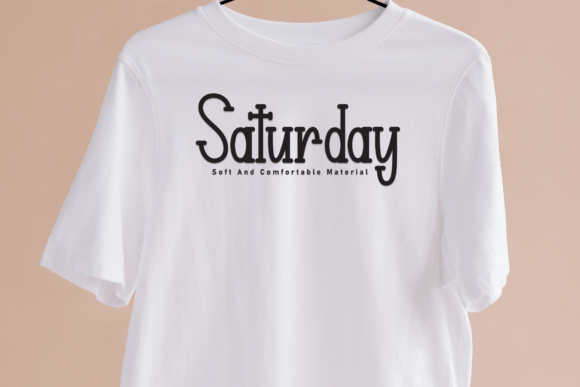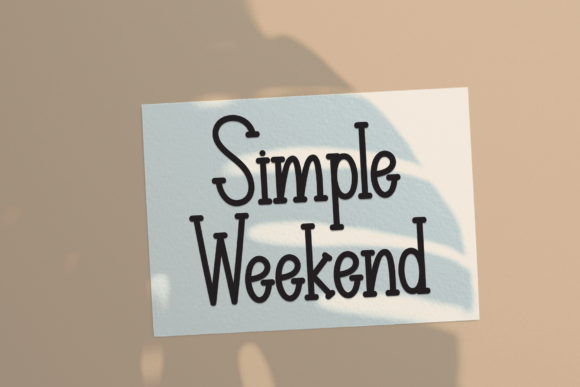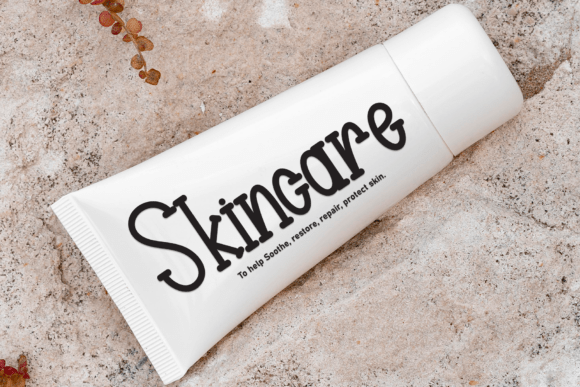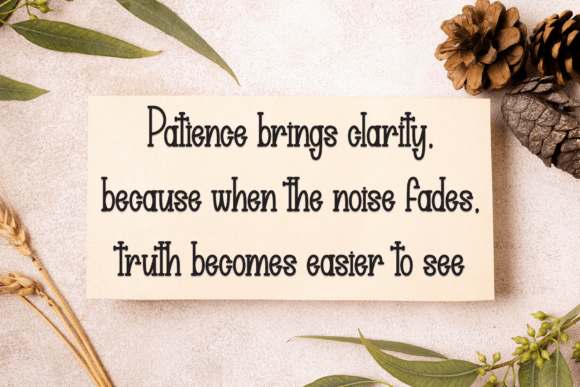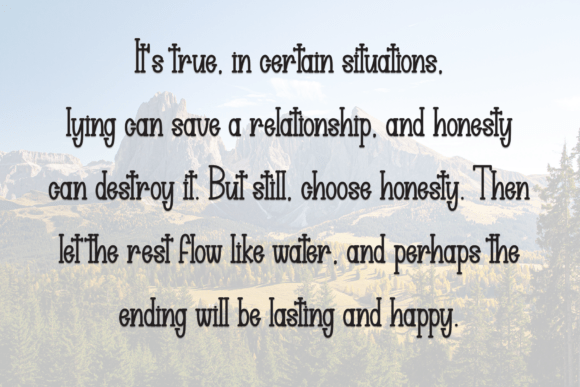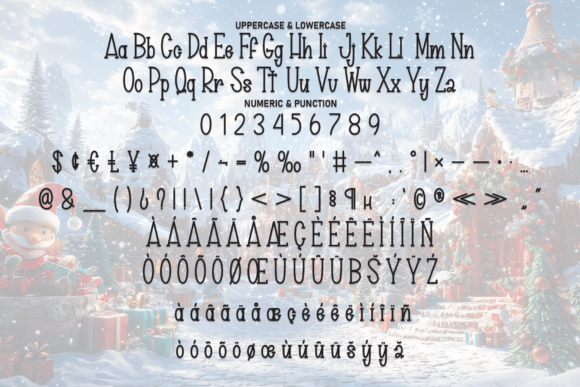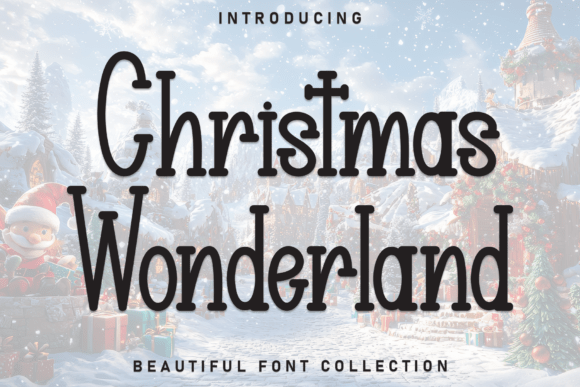
Introducing Christmas Wonderland Font: Elevate Your Designs with Whimsical Elegance
Are you a designer or crafter looking to add a touch of magic to your typography? Look no further than the Christmas Wonderland Font, a handcrafted display typeface that embodies the perfect blend of sophistication and playfulness. This captivating font is designed to inspire creativity and bring a sense of wonder to your designs.
A Harmonic Blend of Style and Substance
Each glyph in the Christmas Wonderland Font is meticulously crafted to exude a sense of irresistible grace and enchanting allure. The result is a font that seamlessly uplifts the aesthetic appeal of any design, making it an exemplary choice for wedding invitations, greeting cards, and other special projects. The joyous yet lucid attributes of this font strike a perfect balance between beauty and readability, ensuring that your message is conveyed with clarity and style.
Unleash Your Creativity with Spirited Elegance
The Christmas Wonderland Font boasts a unique combination of spirited elegance and playful charm. This distinctive character breathes vitality into your text, making it perfect for designers and crafters who want to add a touch of whimsy to their work. Whether you’re creating wedding invitations, holiday cards, or festive posters, this font is sure to captivate your audience and leave a lasting impression.
Distinct Energy and Personality
What sets the Christmas Wonderland Font apart is its extraordinary charisma. This typeface possesses a distinct energy and personality that adds depth and dynamism to every design. By incorporating this font into your project, you’ll reward your audience with a unique visual experience that showcases your creativity and attention to detail.
The Christmas Wonderland Font is an incredibly versatile typeface that can be used in a wide range of projects, including:
- Holiday cards and greetings
- Festive posters and flyers
Why Choose Christmas Wonderland Font?
Here are just a few reasons why designers and crafters love the Christmas Wonderland Font:
- Unique and eye-catching design: This font is sure to grab attention and make your designs stand out.
- Highly readable: The lucid attributes of this font ensure that your message is conveyed with clarity and precision.
- Versatile: Use this font in a variety of projects, from wedding invitations to holiday cards and beyond.
Get Ready to Enchant Your Audience
If you’re looking for a font that will add a touch of magic to your designs, look no further than the Christmas Wonderland Font. With its captivating blend of style and substance, this handcrafted display typeface is sure to delight designers, crafters, and audiences alike. Download the Christmas Wonderland Font today and start creating enchanting designs that will leave a lasting impression.
In conclusion, the Christmas Wonderland Font is an exceptional typeface that offers a unique blend of elegance, playfulness, and readability. Whether you’re a designer, crafter, or simply someone who appreciates beautiful typography, this font is sure to inspire creativity and bring a sense of wonder to your projects. So why wait? Discover the magic of Christmas Wonderland Font and elevate your designs to new heights.